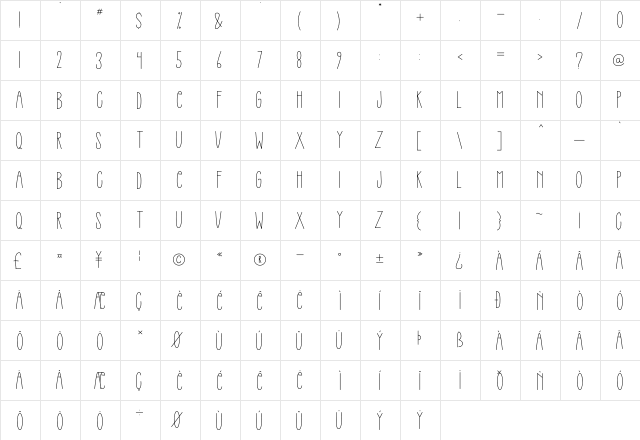
BALEHOME Regular
Design Context for BALEHOME Typeface
BALEHOME offers clean, dependable letterforms without strong stylistic allegiance, making it a practical choice for designers who need flexibility.